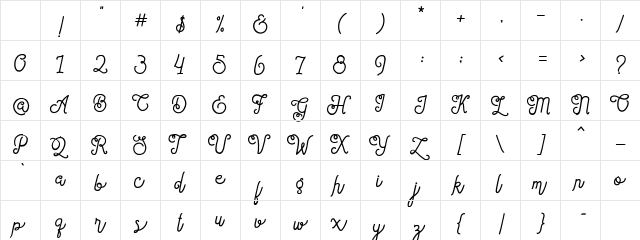
Sortdecai Cursive Wild Script flows with the natural rhythm of handwritten lettering, making it ideal for designs that call for warmth and personal expression.
Font Pairing: Combine Sortdecai Cursive Wild Script with a simple geometric sans for maximum contrast - the tension between flowing curves and clean structure is a classic typographic pairing.
Pro Tip: Use Sortdecai Cursive Wild Script for short runs of text - names, titles, or taglines. Extended body copy in script faces tires the eye quickly.